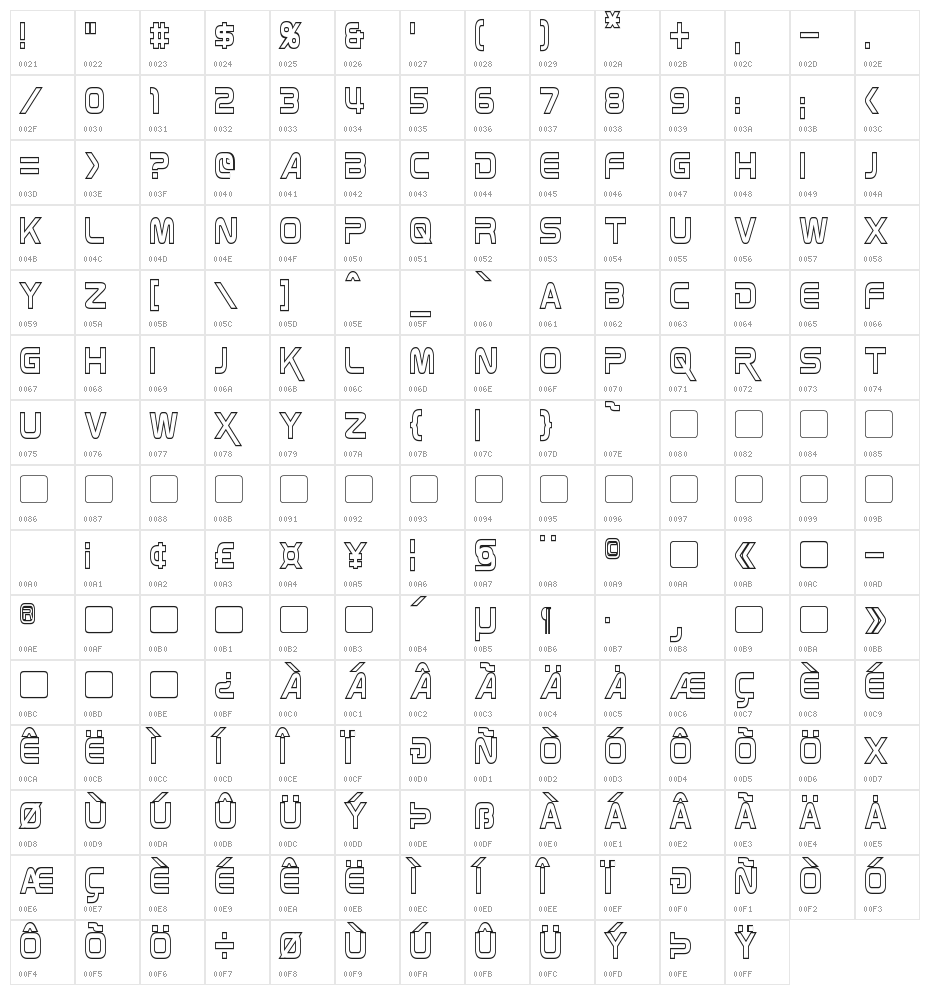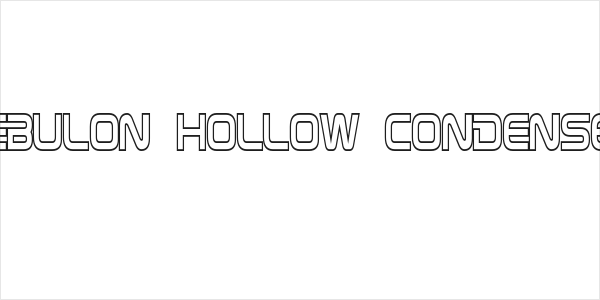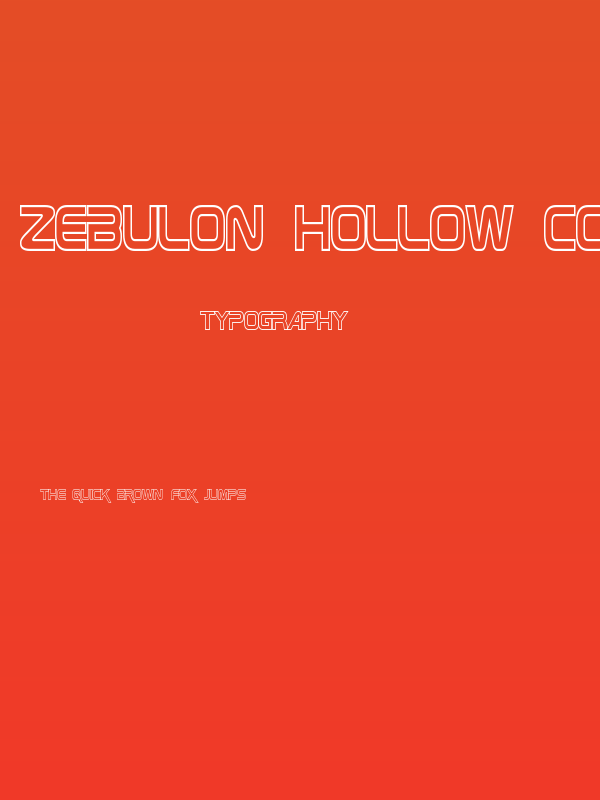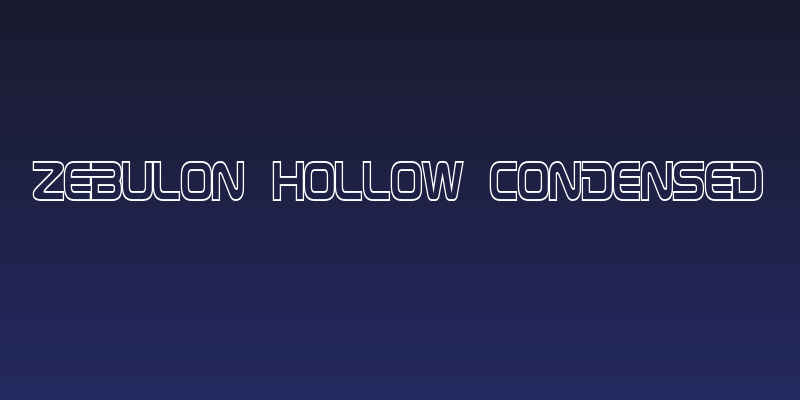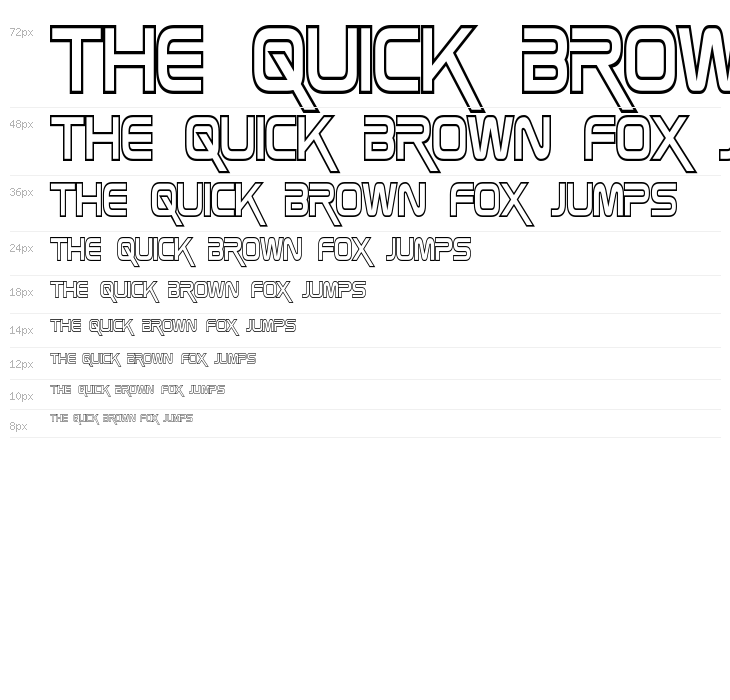
Zebulon Hollow Condensed Font
Zebulon Hollow Condensed Description
This font features a futuristic and geometric design with hollow, outlined characters. The uppercase letters are bold and angular, creating a striking visual impact. The condensed style enhances its modern aesthetic, making it ideal for attention-grabbing headlines. The numbers and special characters maintain the same hollow and structured appearance, ensuring consistency across all elements. The font's unique style is both decorative and functional, suitable for projects that require a contemporary and edgy look.
| Proposed Projects | Ideal for sci-fi themed designs, tech company logos, video game titles, and modern posters. |